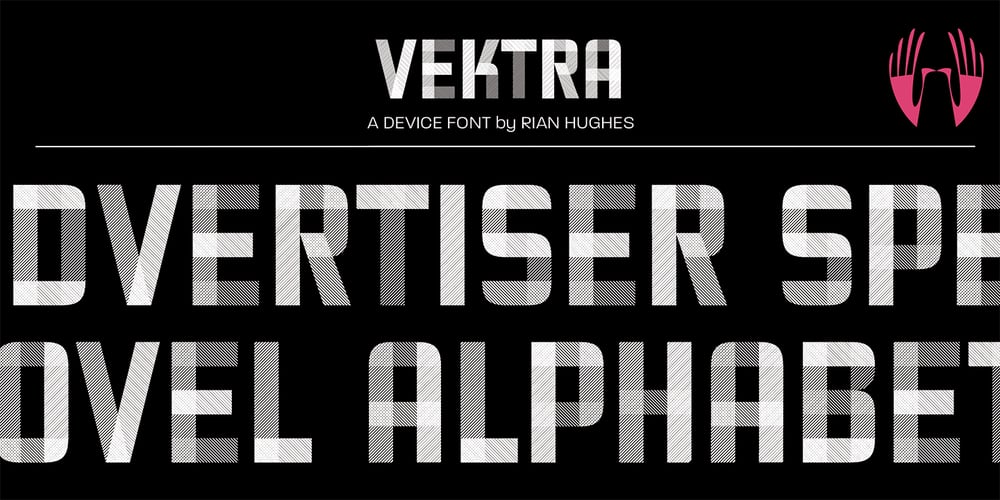
Vektra
Vektra font
Vektra Font Family was designed by Rian Hughes and published by Device. Vektra contains 1 styles and family package options. Vektra takes advantage of the high-resolution afforded by the Glyphs font design program. Stripes of different density overlap to create a cross-hatched tonal effect. Best used at larger sizes and in shorter settings where the details can be seen.